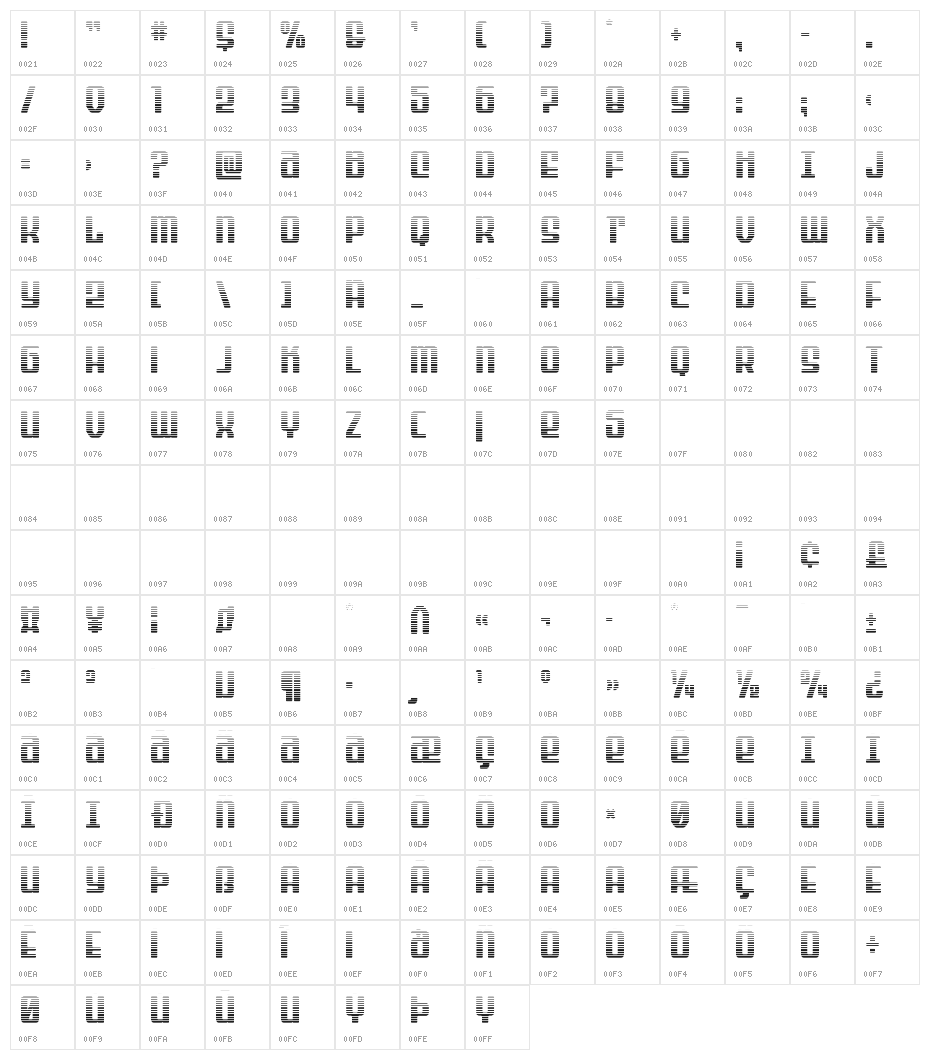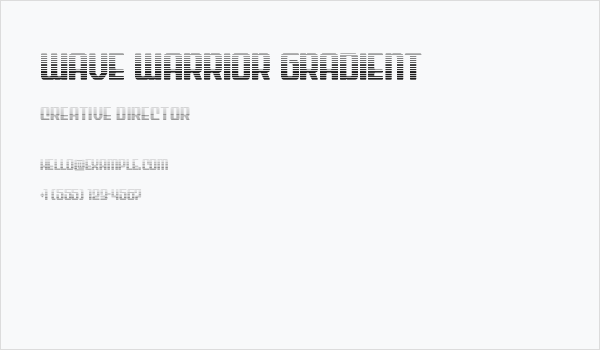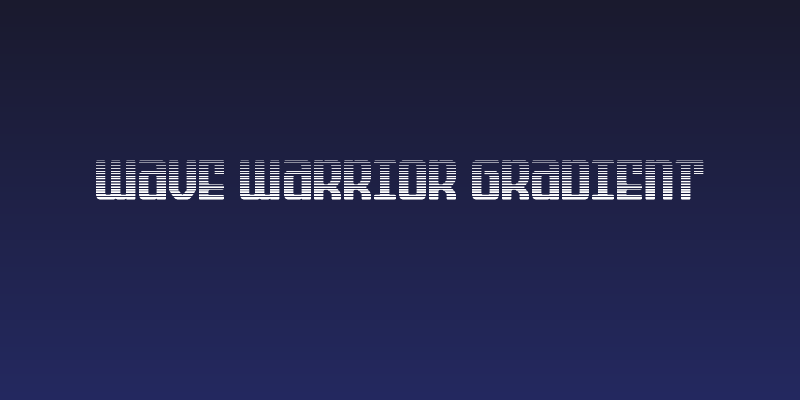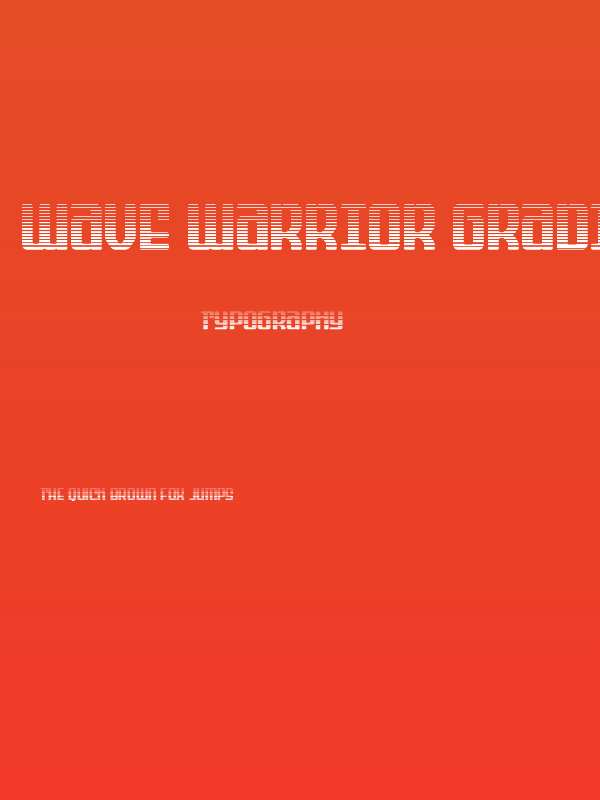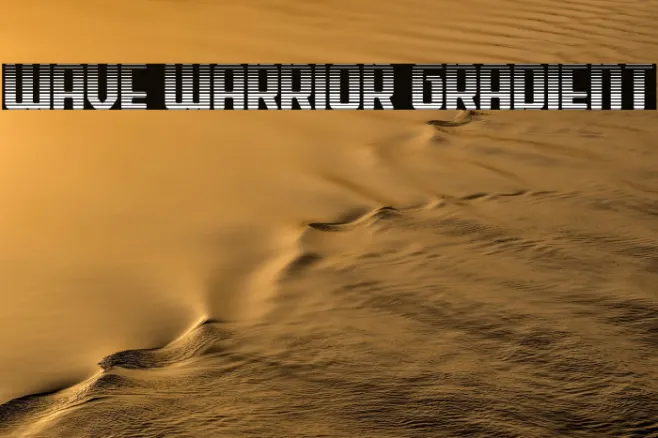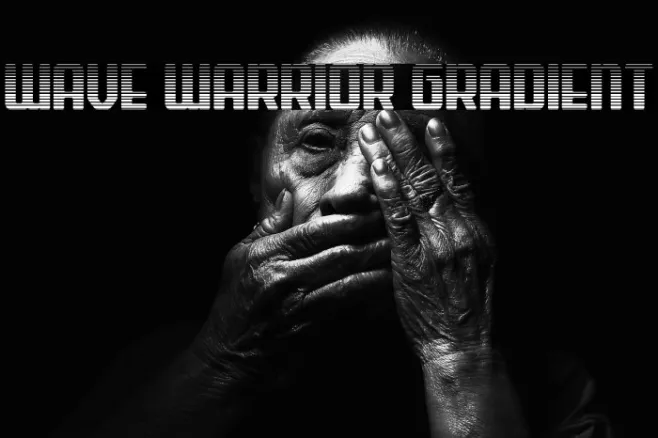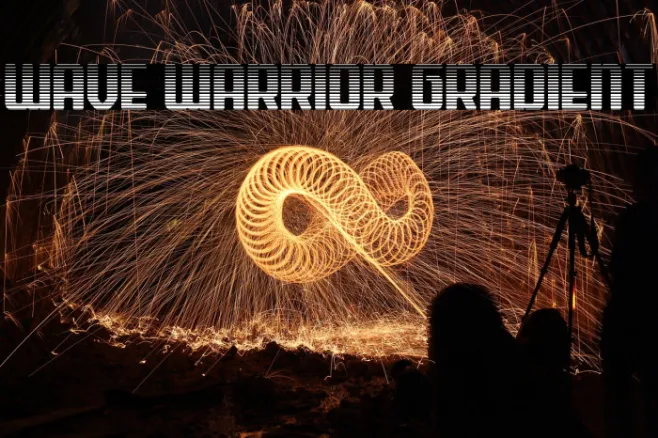
Wave Warrior Gradient Font
Wave Warrior Gradient Description
This font features a bold, futuristic design with a distinctive gradient effect that creates a sense of movement and depth. The characters are constructed with horizontal lines that vary in thickness, giving each letter a dynamic and energetic appearance. The uppercase and lowercase letters maintain a consistent style, with sharp angles and geometric shapes that enhance the modern aesthetic. The numerals and special characters are equally bold and striking, making them suitable for attention-grabbing designs. The overall look is both innovative and eye-catching, perfect for projects that require a strong visual impact.
| Proposed Projects | Ideal for sci-fi themed designs, video game titles, posters, and branding that requires a modern and energetic look. |